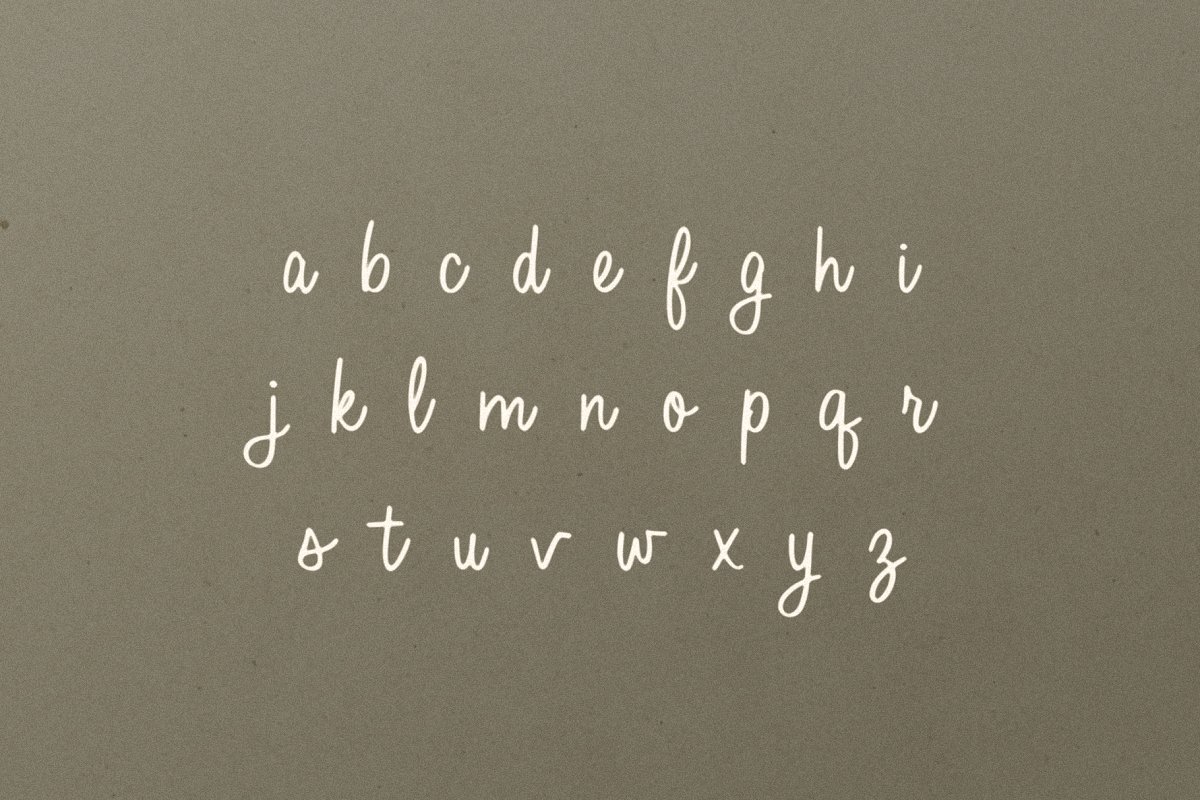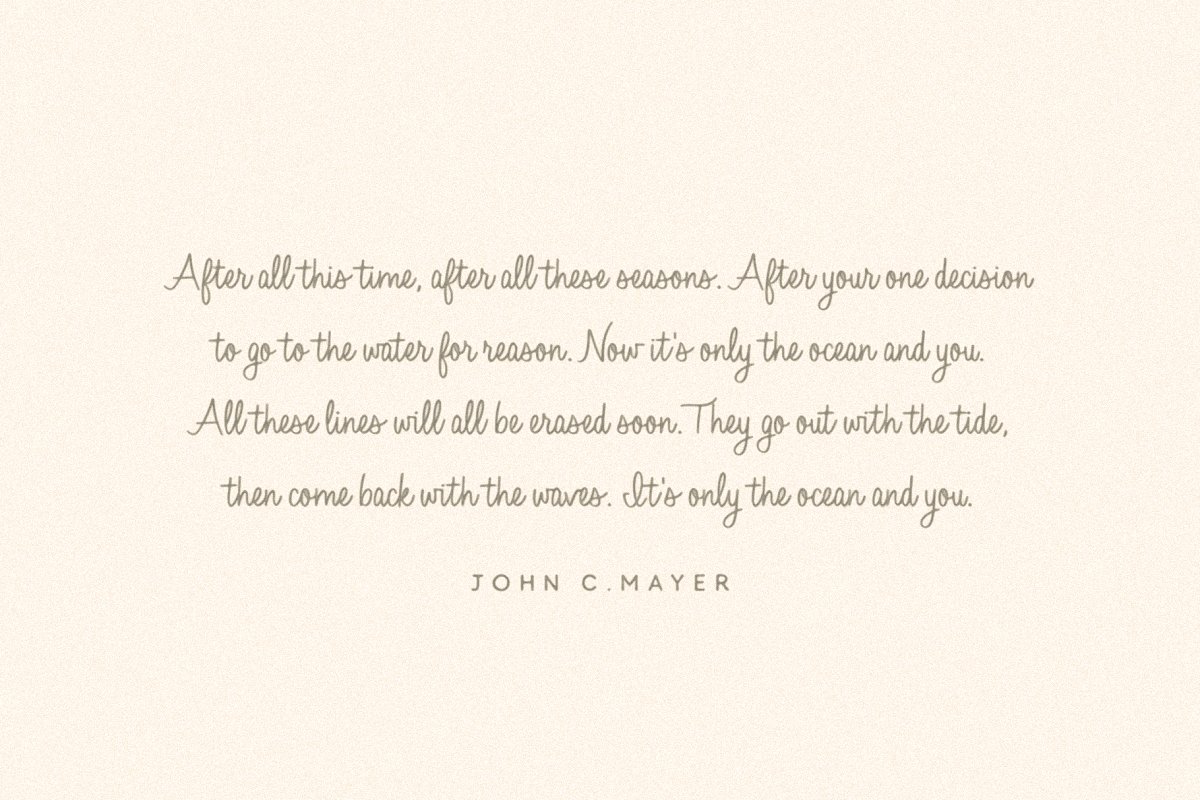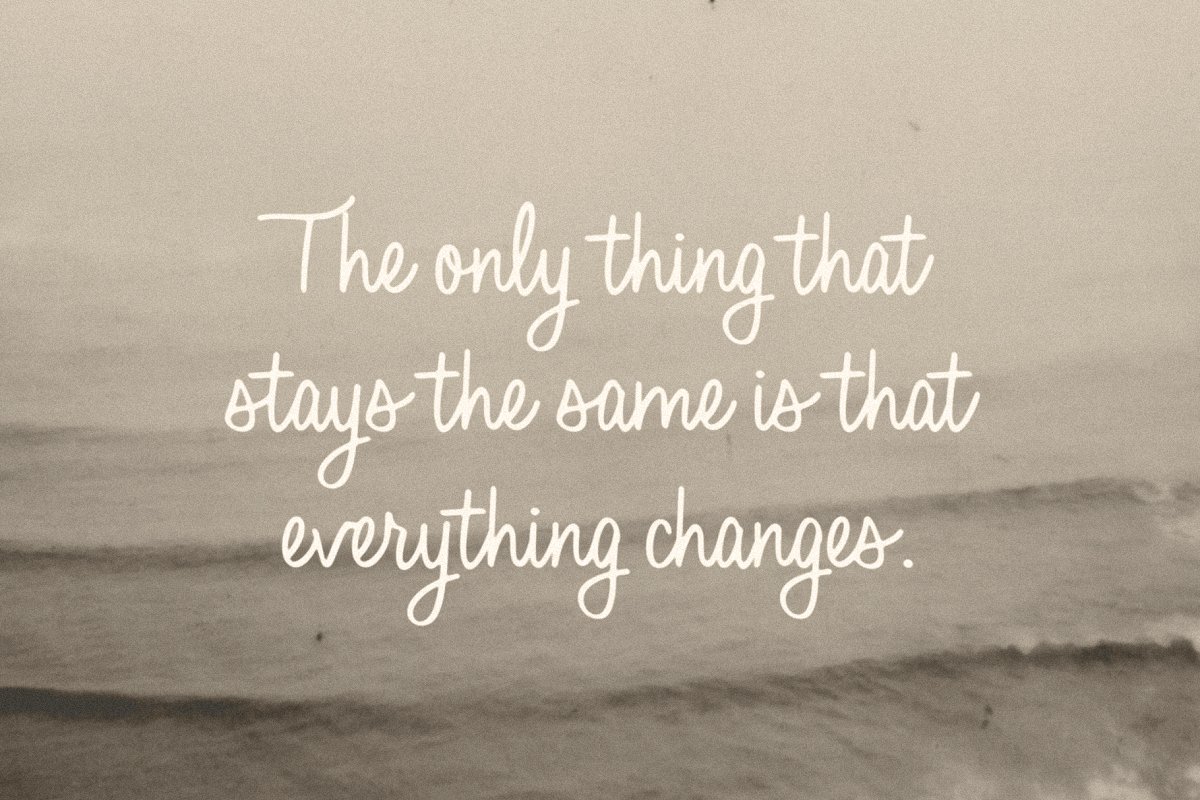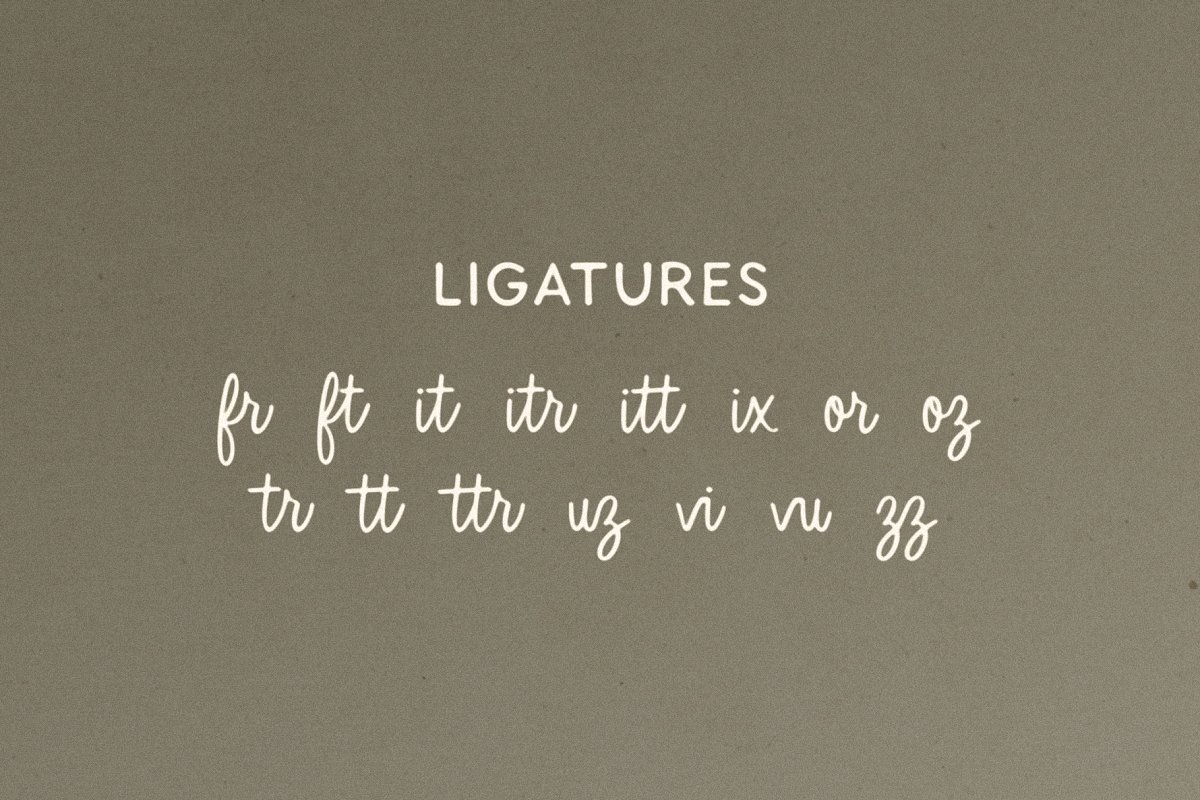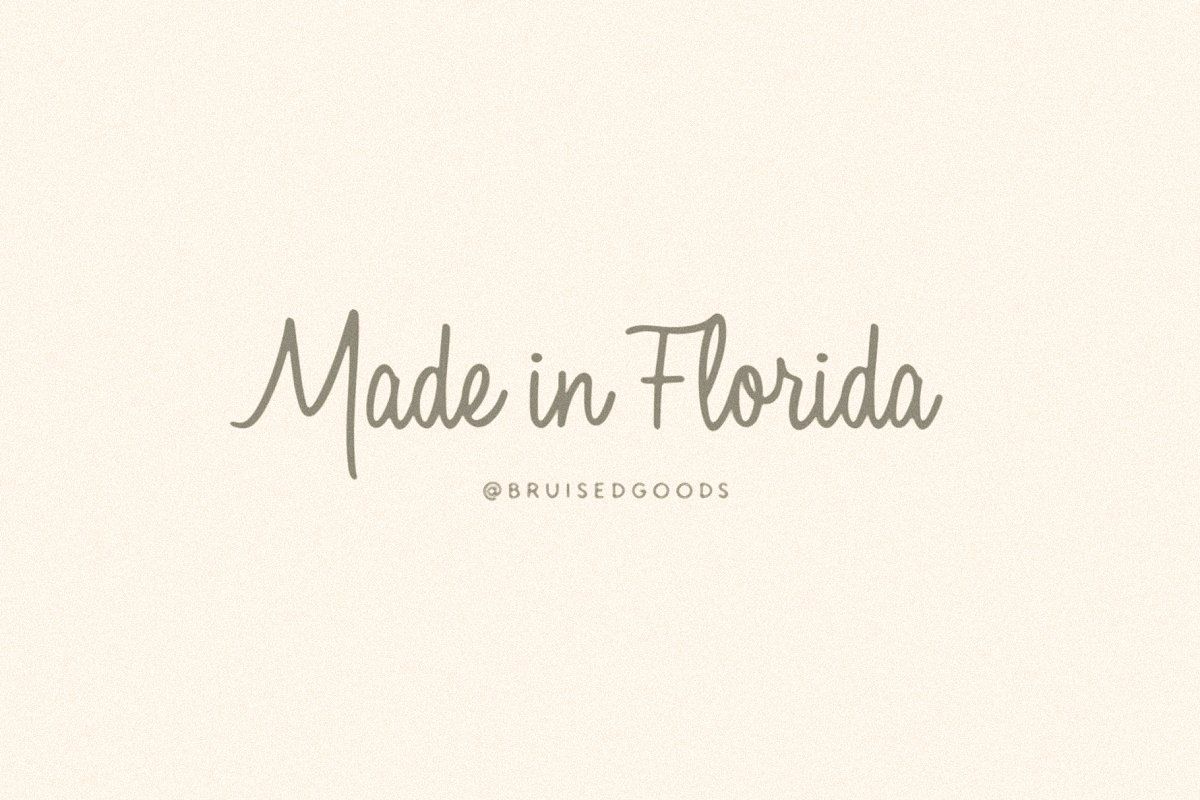
About the Drifter Font
DRIFTER – A mid century script font, hand crafted by Lauren Kilbane in sunny south Florida, USA, Use this font for: ads, album covers, apparel, cards, flyers, invitations, logos, menus, merchandise, packaging, signage, web, and more, OTF & TTF filesUpper and lower case lettersStandard English alphabetNumbers, Currency Symbols, Standard PunctuationStandard Ligatures (To access ligatures in illustrator:go to window type open type turn on Ligatures button